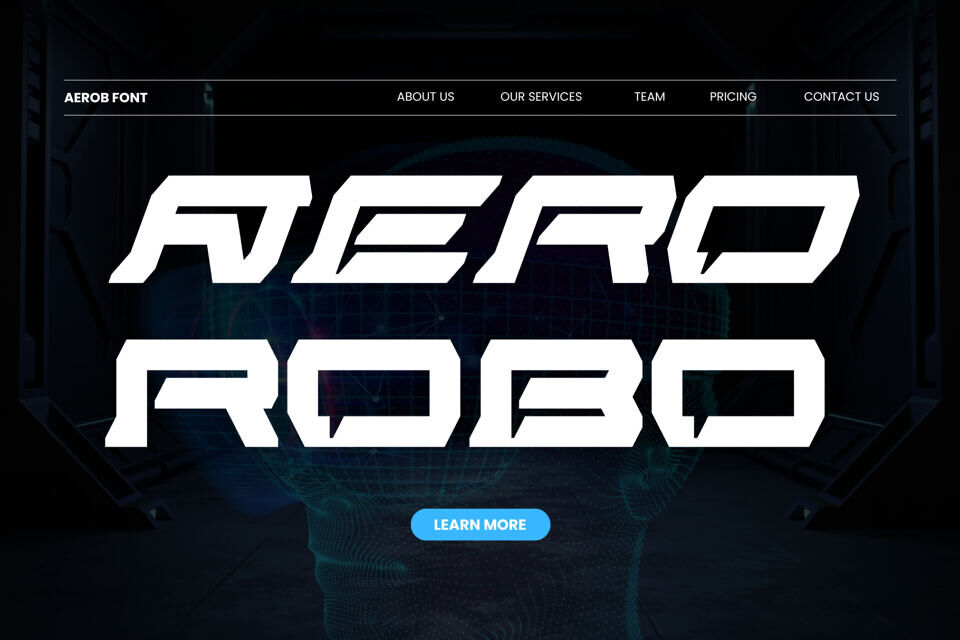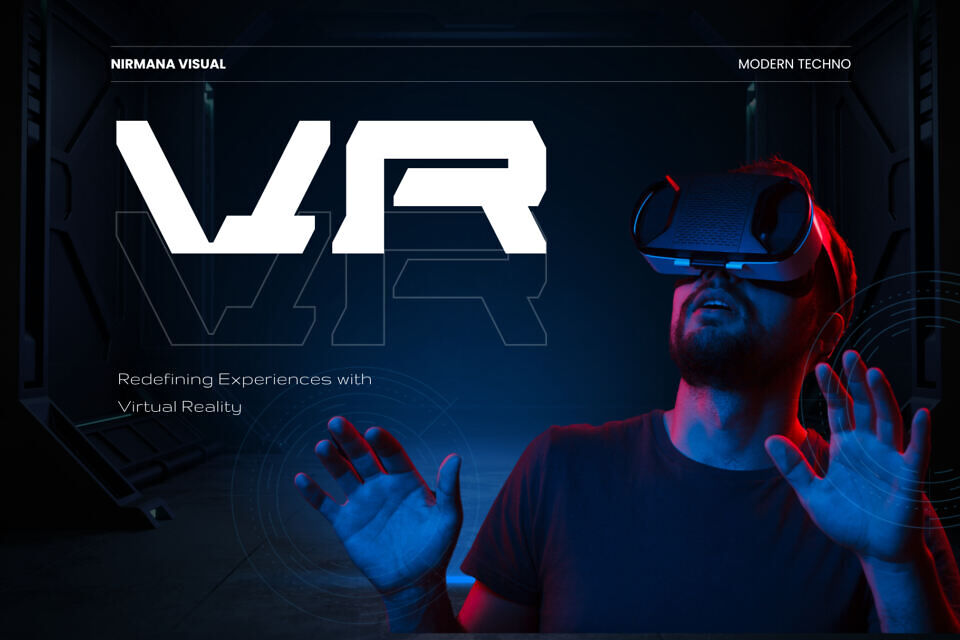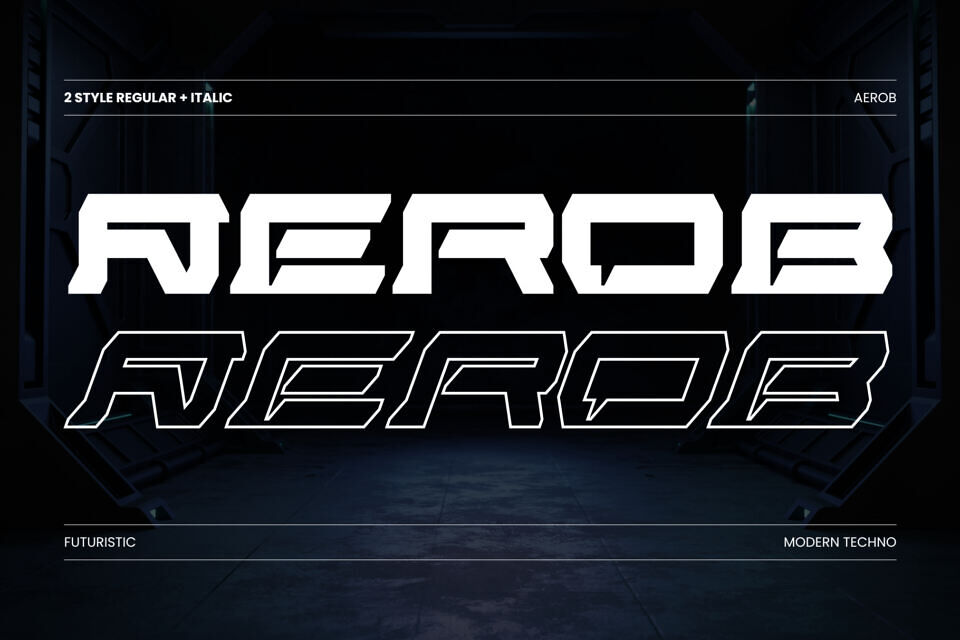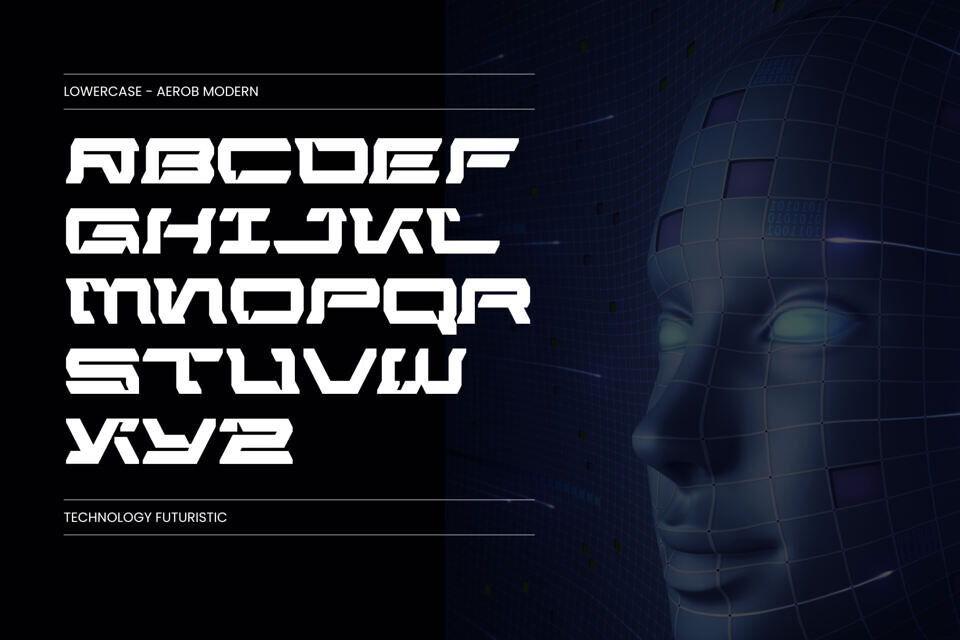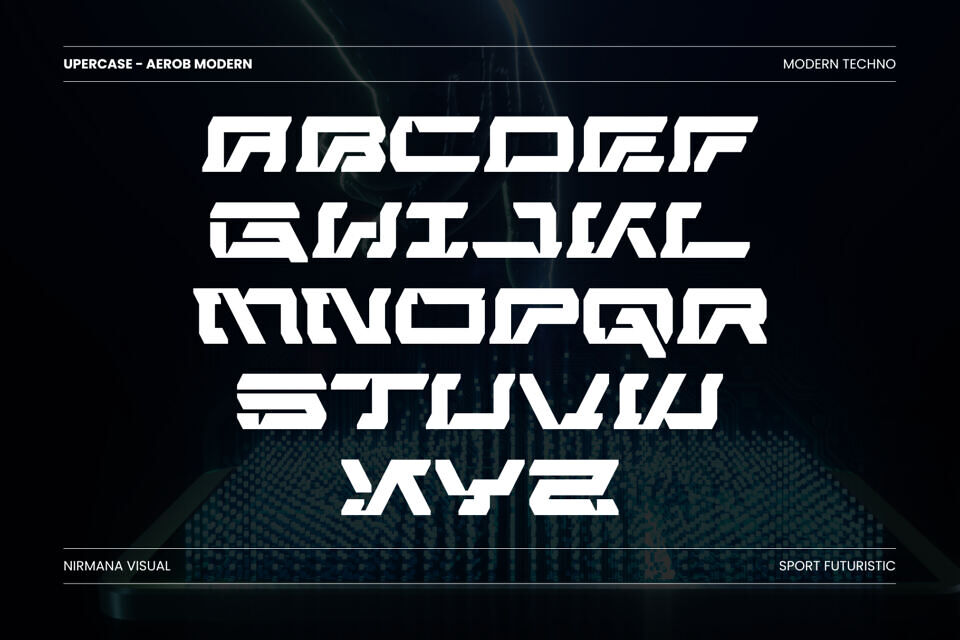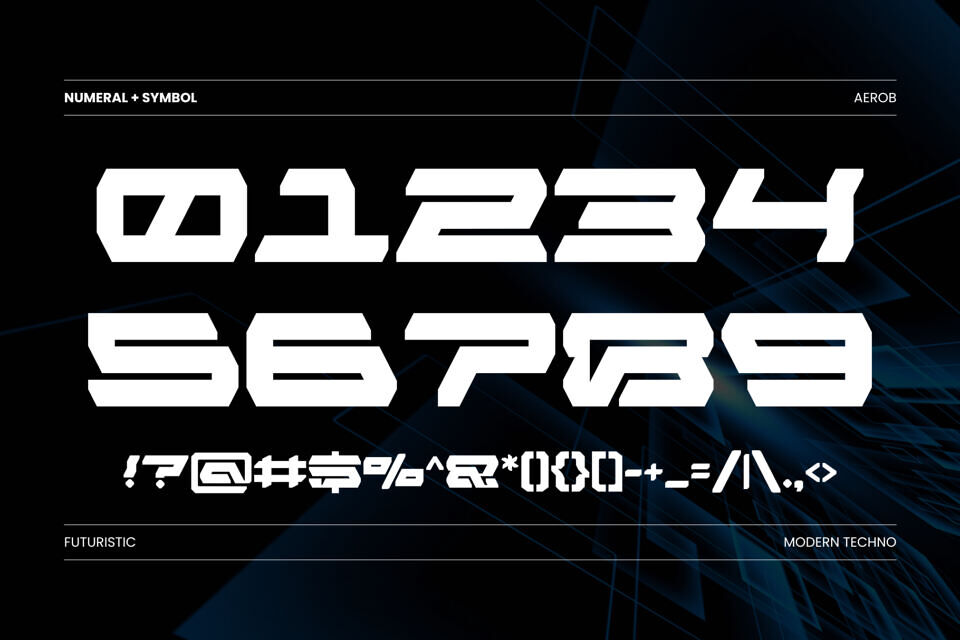
Aerob Modern Font
Modern Aerob offers beautiful typographic harmony for a diversity of design projects, including logos & branding, social media posts, advertisements & product designs.
Designed by: Nirmana Visual